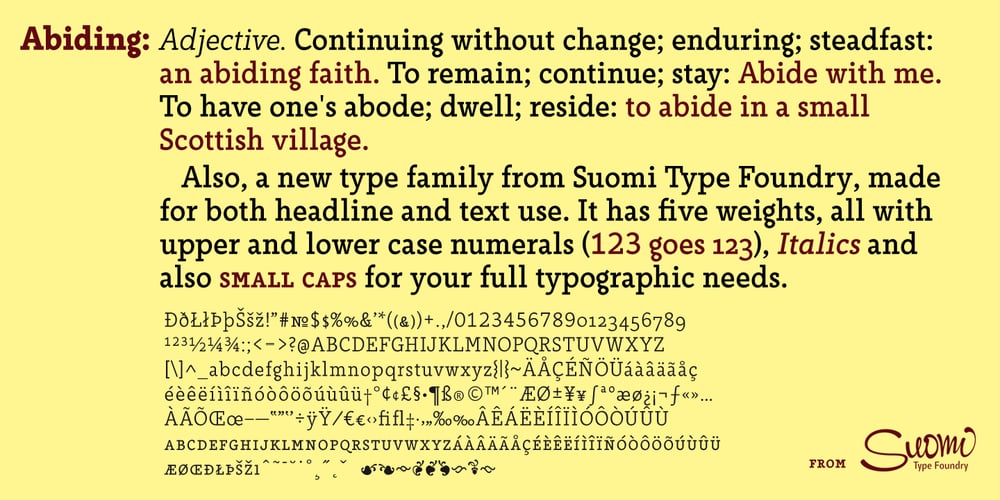
Abiding Font Family was designed by Tomi Haaparanta and published by Suomi. Abiding contains 10 styles and family package options. A Slab Serif font family of five weights for headline and text use, with old style numerals and small caps.